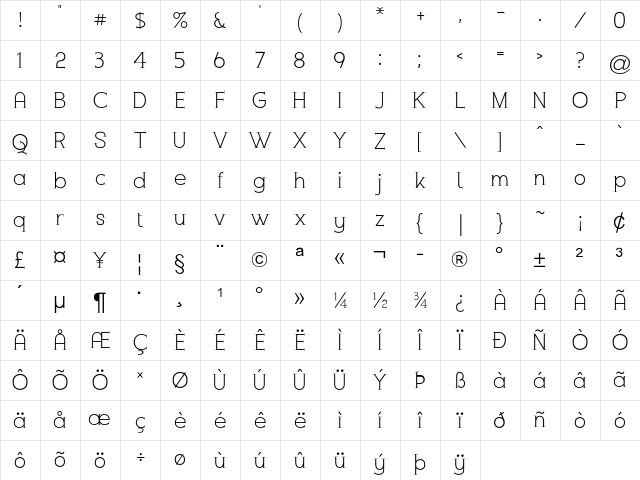
Cunningham Regular
Complete Cunningham Regular glyph index. Displaying only characters natively supported by Cunningham Regular font.
Design Context for Cunningham
Cunningham is a composed and adaptable typeface that performs quietly and consistently across a wide range of design contexts.